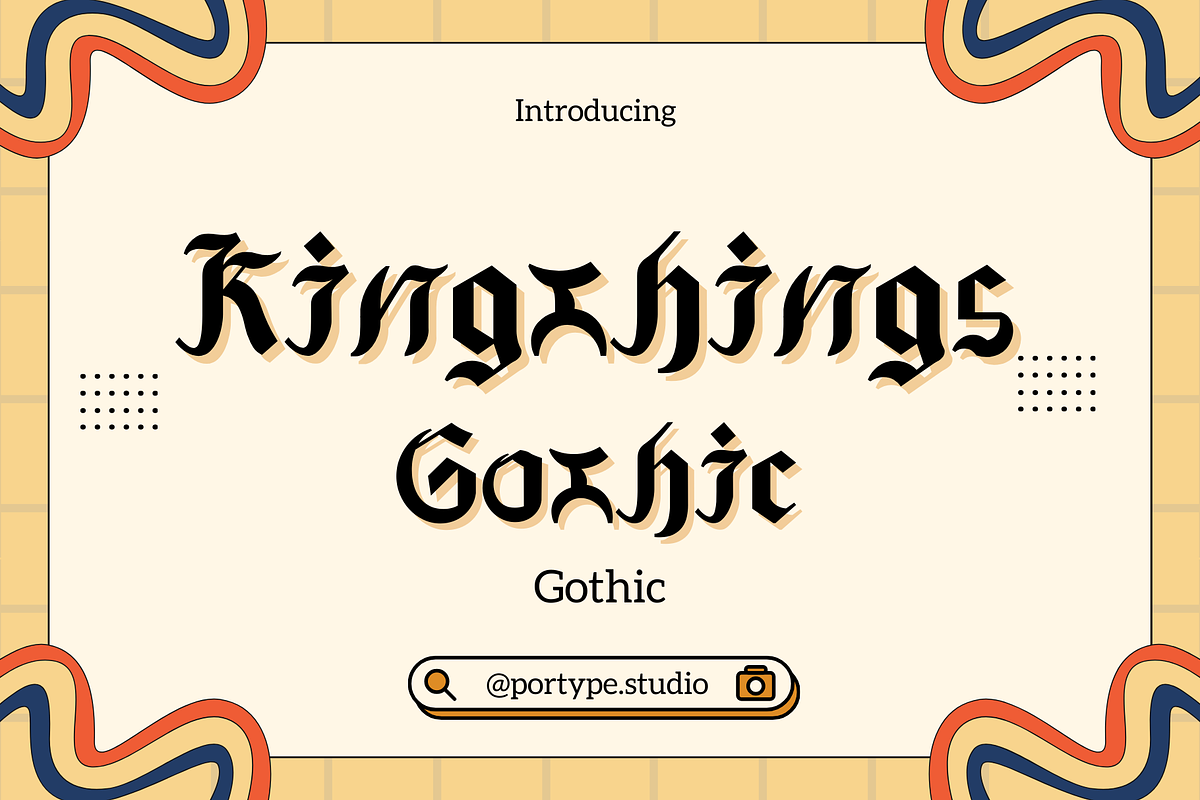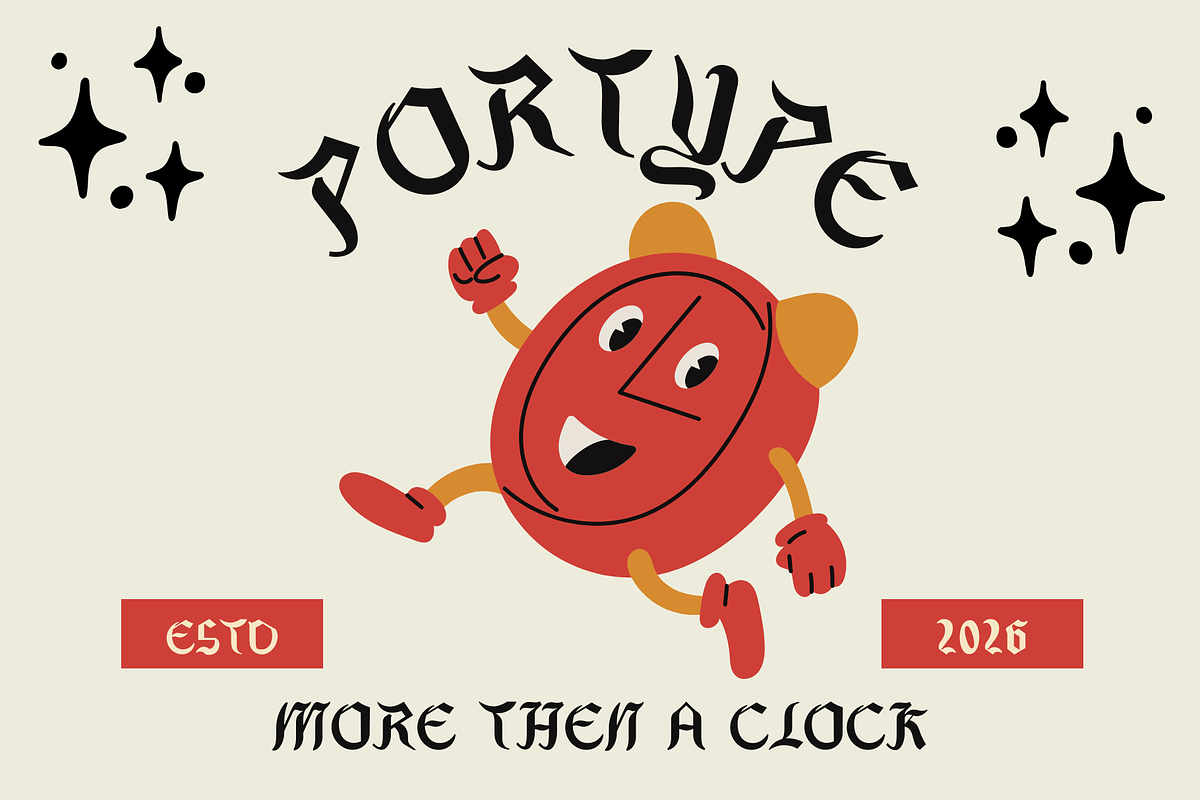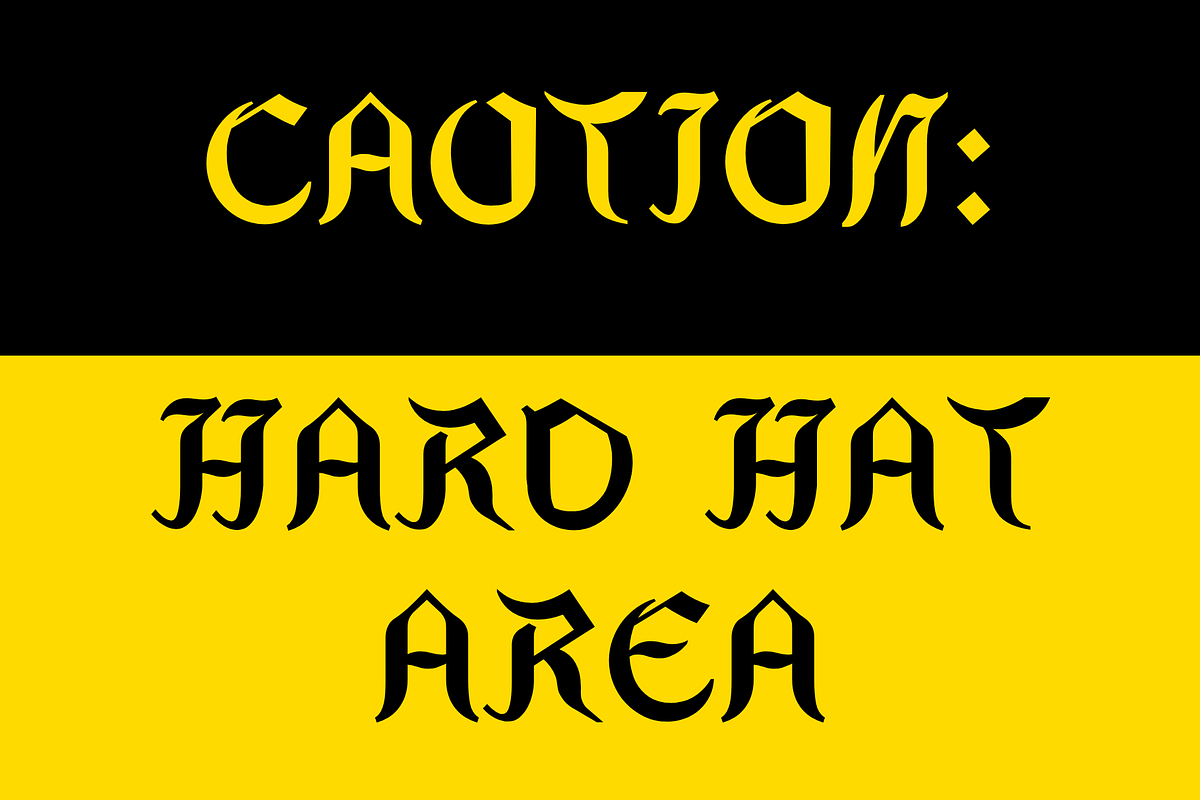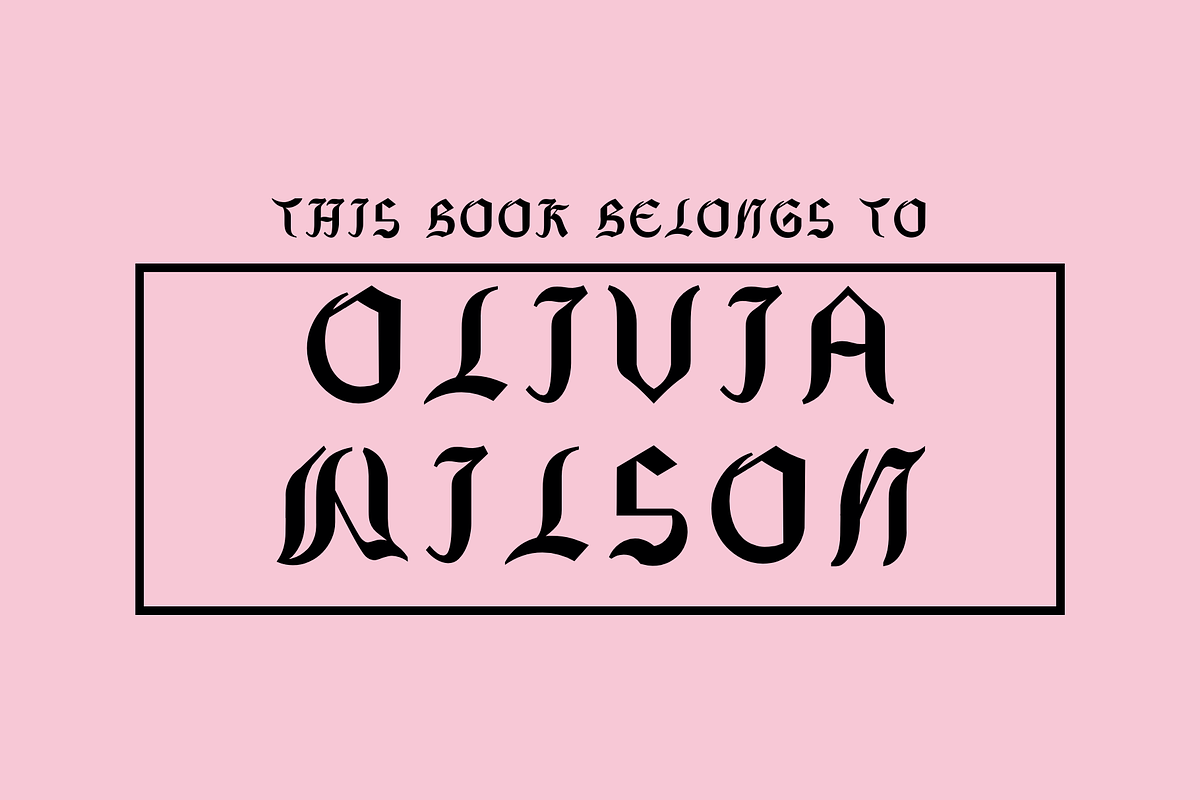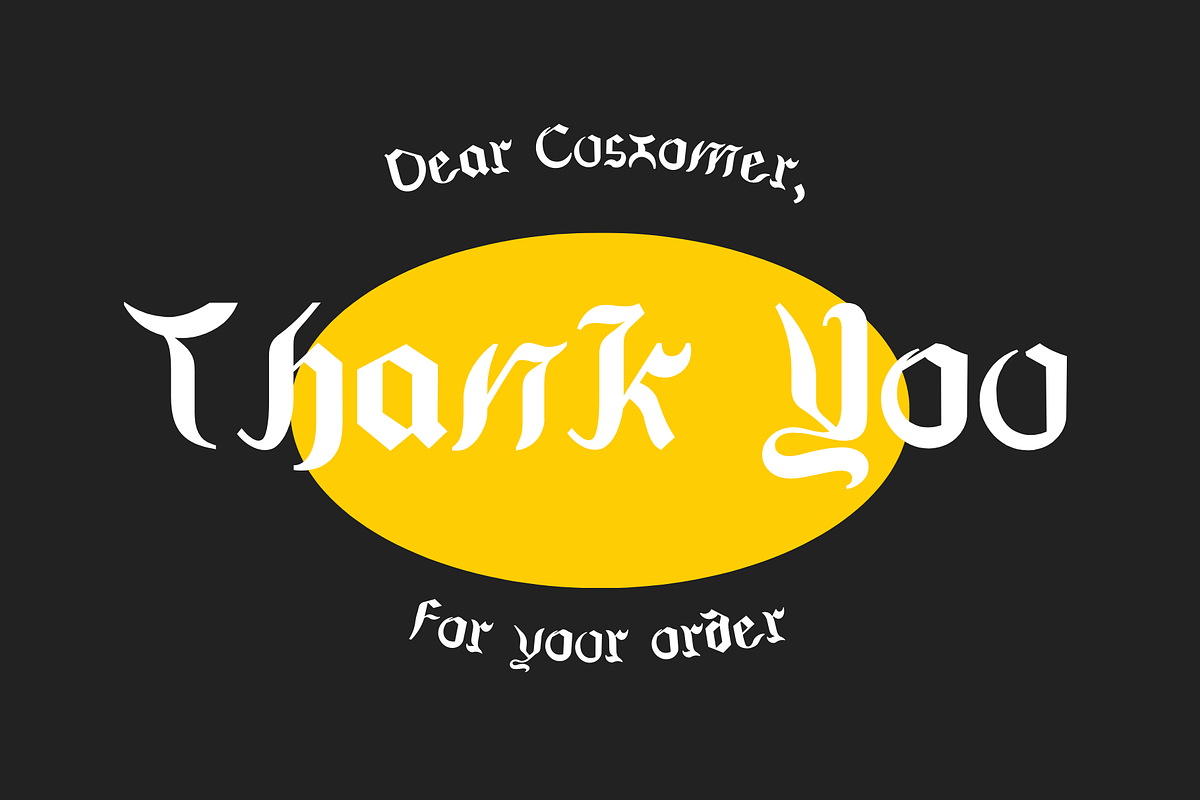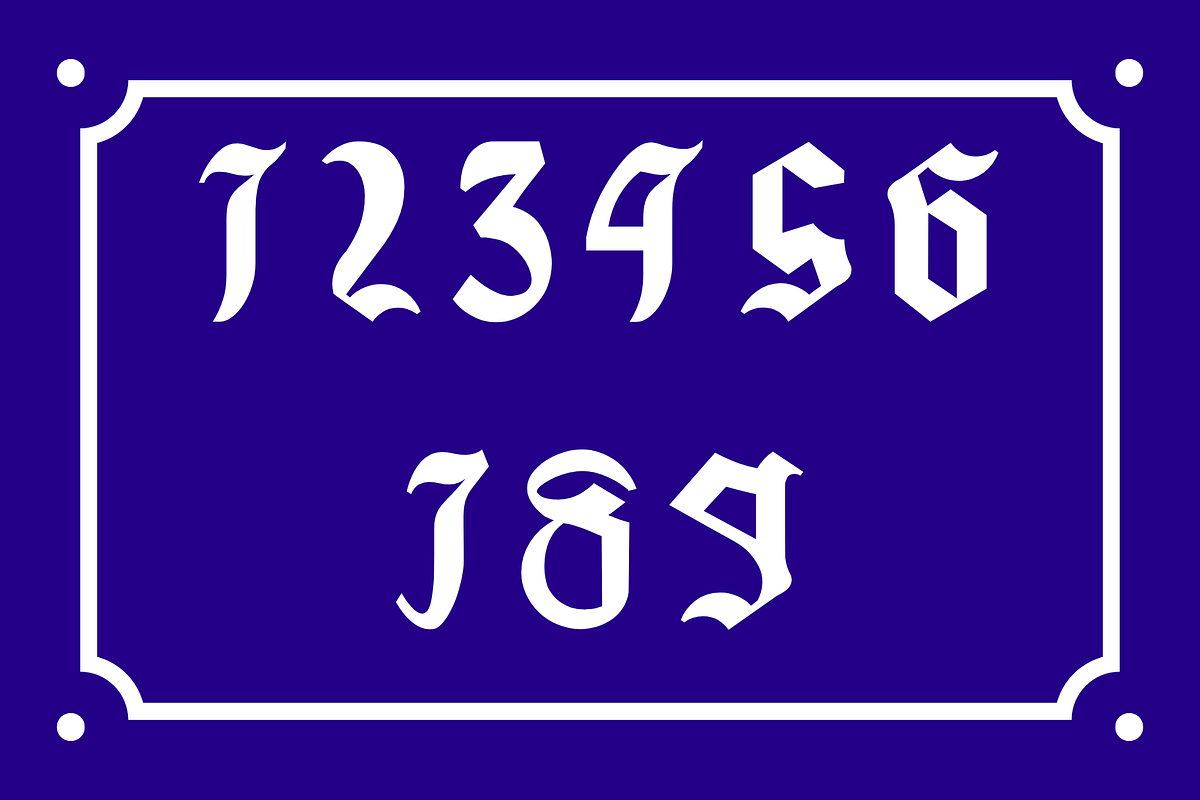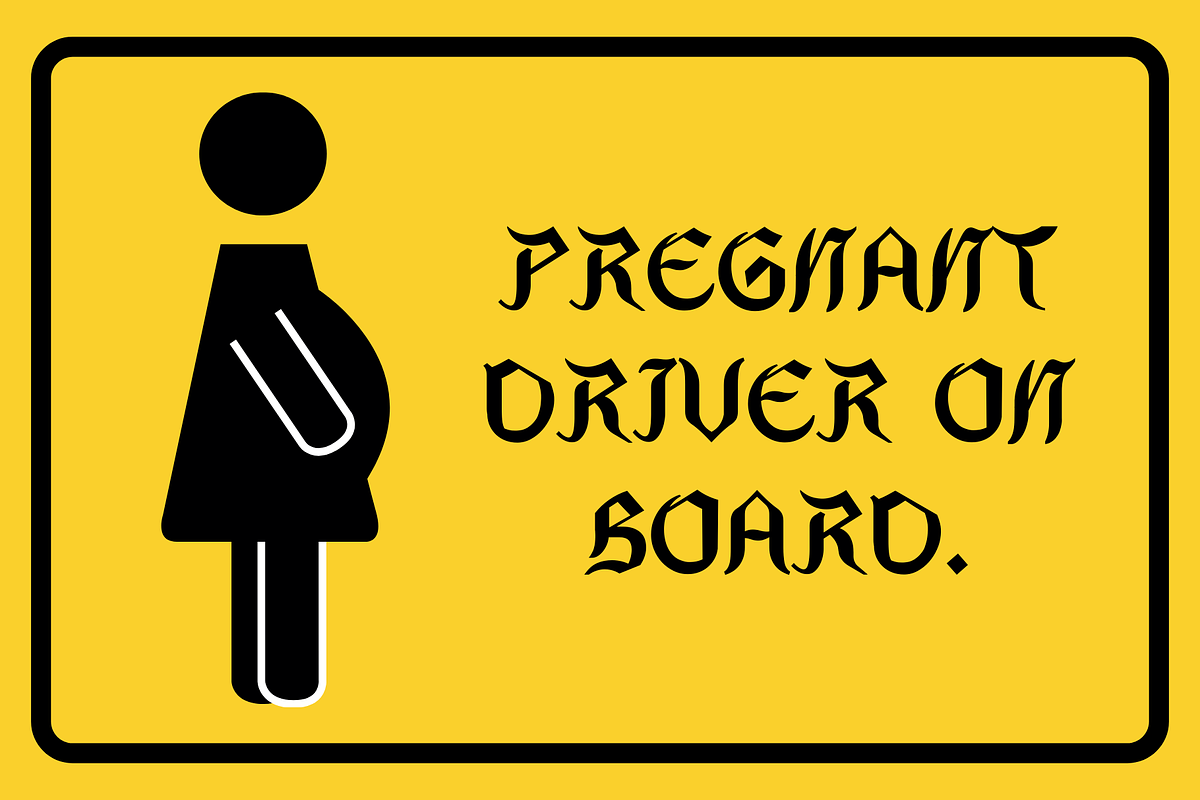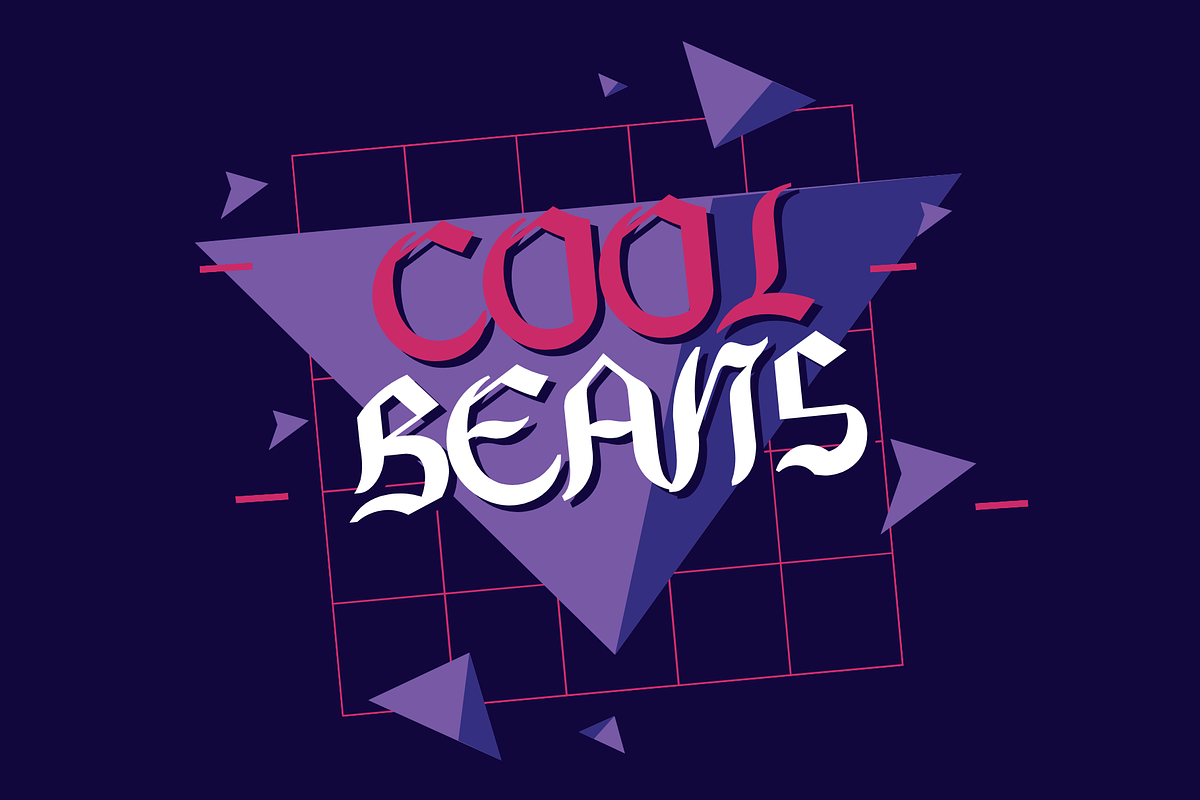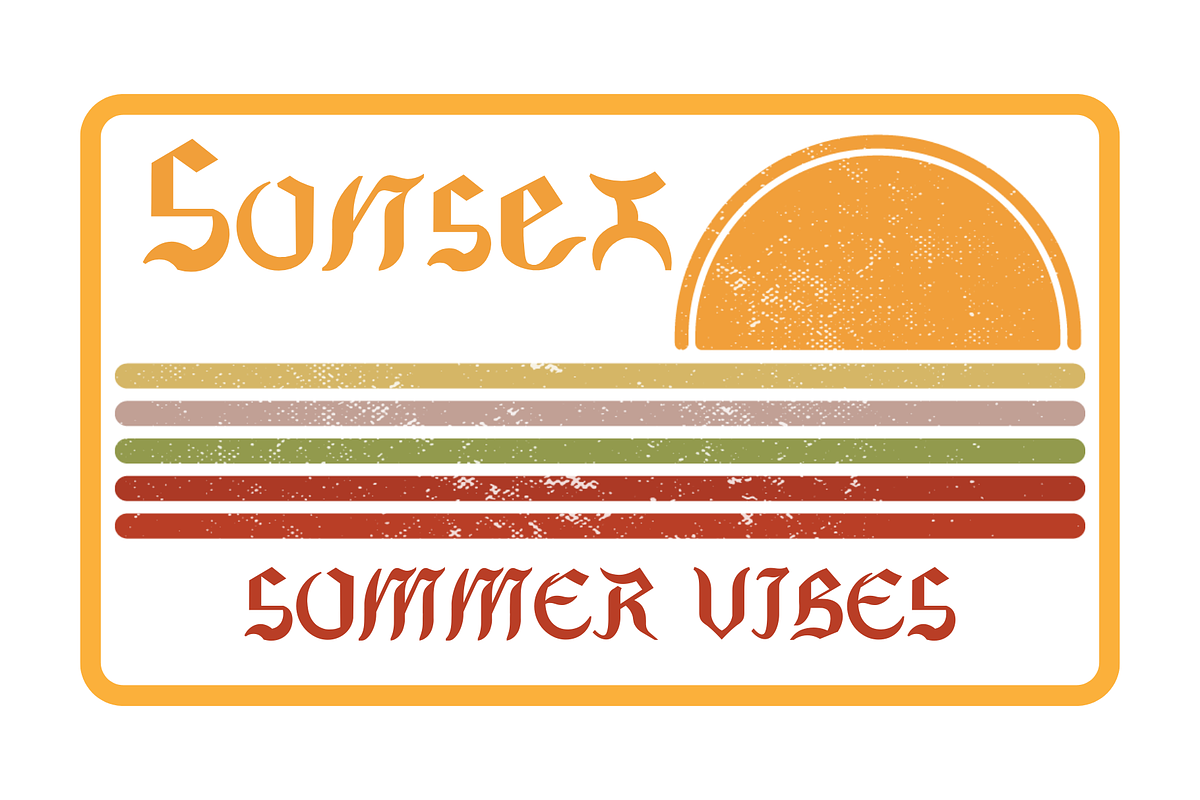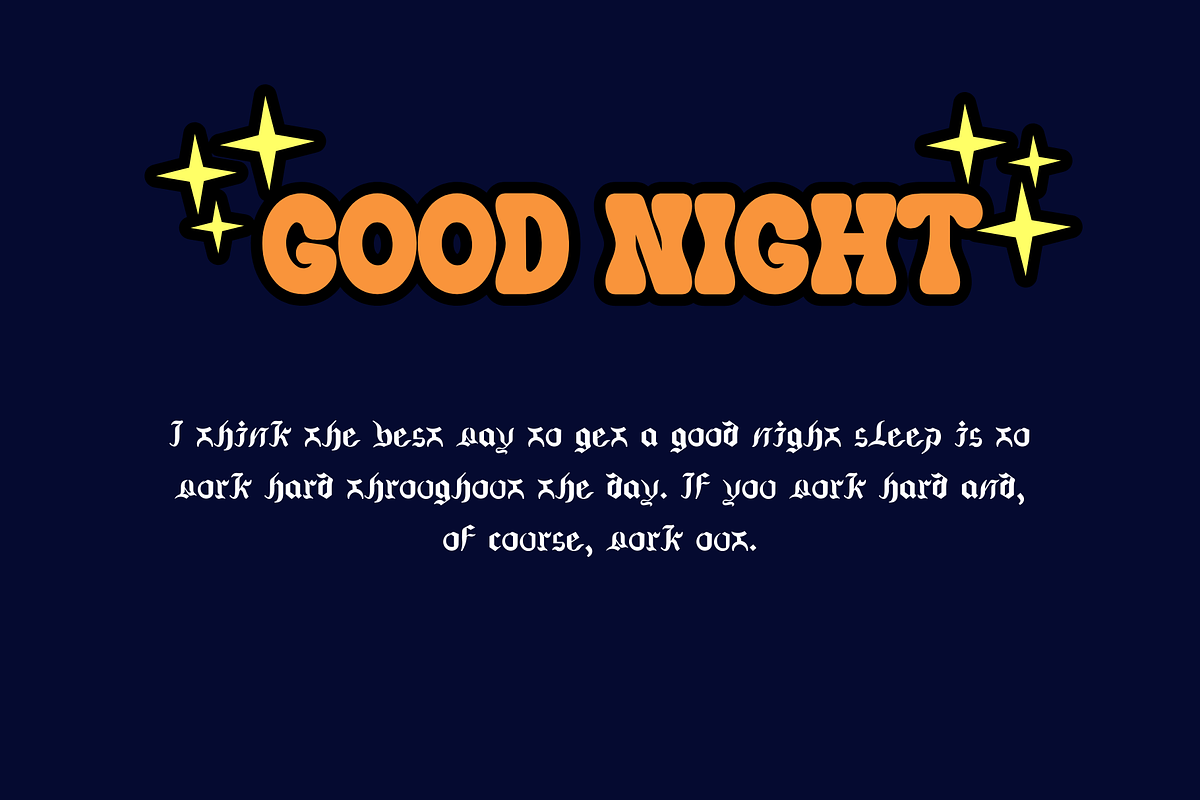
Kingthings Gothic
Kingthings Gothic is a unique and distinctive font that blends traditional gothic elements with modern design sensibilities. Created by Portype, this typeface features intricate details and bold strokes, making it ideal for projects that require a dramatic and historical touch. Its sharp, angular lines and decorative flair evoke the classic aesthetic of medieval manuscripts and old-world calligraphy.
Perfect for posters, book covers, and branding that needs to stand out, Kingthings Gothic brings a touch of elegance and antiquity to any text. Its legibility, combined with its ornamental style, ensures that it captures attention while maintaining readability. Whether you’re designing for a fantasy-themed event, a historical publication, or a gothic-inspired project, Kingthings Gothic adds a powerful and evocative charm to your work.